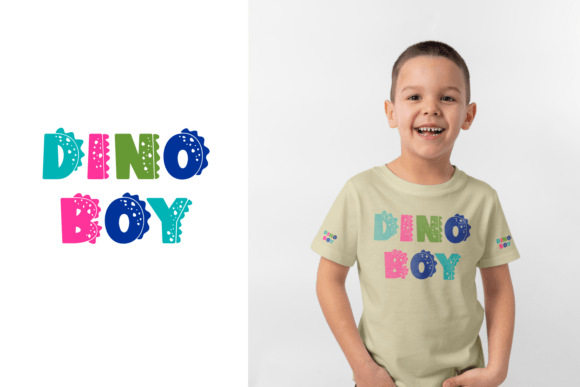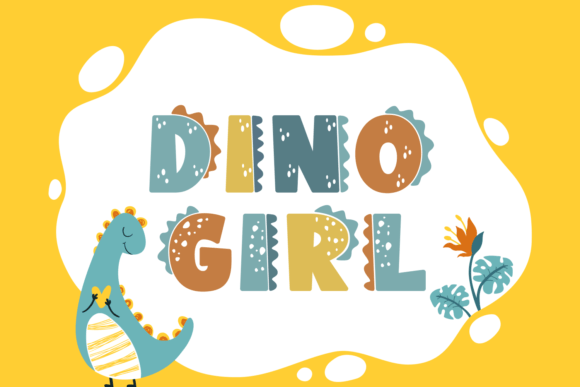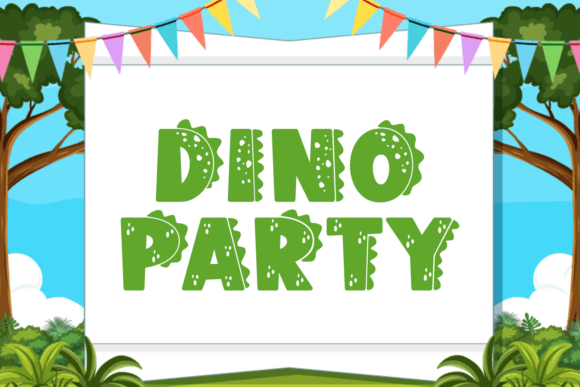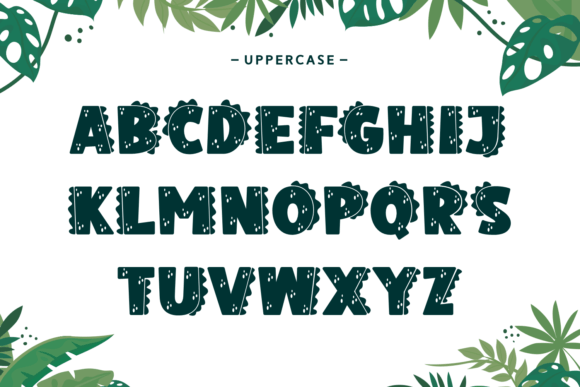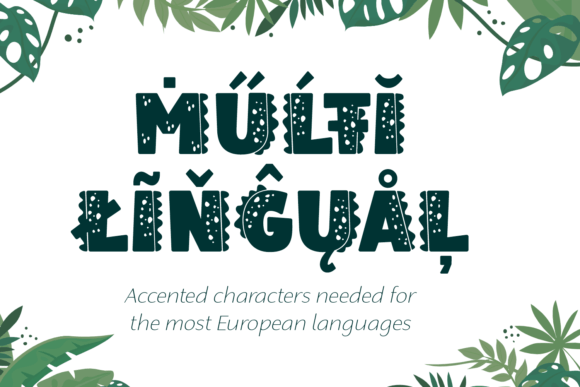
Dino Zack Font: Unleash Your Creativity with this Fun and Playful Decorative Font
Are you a designer, crafter, or DIY enthusiast looking for a font that can add a touch of playfulness and excitement to your kid-friendly designs? Look no further than the Dino Zack Font! This captivating font is perfect for creating unique and eye-catching designs that are sure to delight kids and adults alike.
What is Dino Zack Font?
Dino Zack Font is a fun and playful decorative font that is designed to bring a sense of adventure and excitement to your designs. With its bold and quirky style, this font is perfect for creating designs that are both fun and engaging. Whether you’re designing t-shirts, baby onesies, nursery decorations, digital designs, cards, or any other type of project, Dino Zack Font is sure to be a hit.
Features of Dino Zack Font
So, what makes Dino Zack Font so special? Here are just a few of its key features:
- Fun and playful style: Dino Zack Font has a bold and quirky style that’s perfect for creating designs that are both fun and engaging.
- Kid-friendly: This font is designed with kids in mind, making it perfect for creating designs for children’s products, such as t-shirts, baby onesies, and nursery decorations.
- Versatile: Dino Zack Font can be used for a wide range of design projects, from digital designs to print projects.
- Easily readable: Despite its bold and playful style, Dino Zack Font is still easily readable, making it perfect for creating designs that need to communicate a message.
Uses for Dino Zack Font
So, what can you use Dino Zack Font for? The possibilities are endless! Here are just a few ideas to get you started:
- T-shirt designs: Create fun and playful t-shirt designs that kids and adults will love.
- Baby onesies: Design adorable baby onesies that are perfect for baby showers or special occasions.
- Nursery decorations: Create custom nursery decorations, such as wall art and decals, that are both fun and educational.
- Digital designs: Use Dino Zack Font to create digital designs, such as social media graphics and blog posts, that are both fun and engaging.
- Cards and invitations: Create custom cards and invitations for kids’ parties and special occasions.
Why Choose Dino Zack Font?
So, why should you choose Dino Zack Font for your design projects? Here are just a few reasons:
- Unique and eye-catching: Dino Zack Font is a unique and eye-catching font that’s sure to stand out in a crowd.
- Kid-friendly: This font is designed with kids in mind, making it perfect for creating designs for children’s products.
- Easily customizable: Dino Zack Font is easily customizable, making it perfect for creating designs that fit your specific needs.
- High-quality: This font is high-quality and designed to look great in any design project.